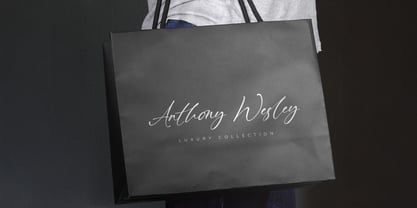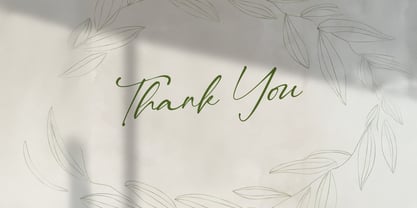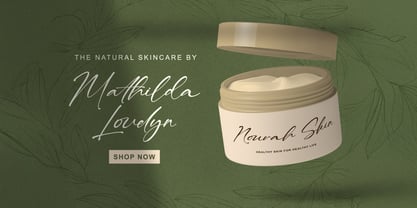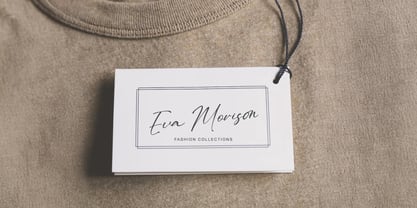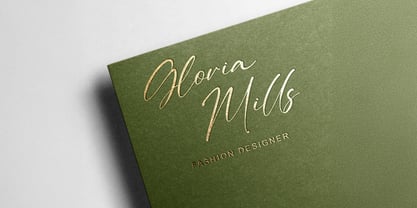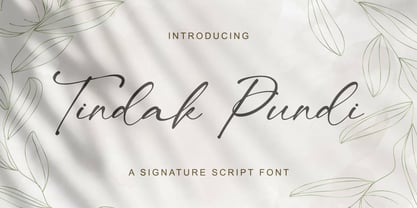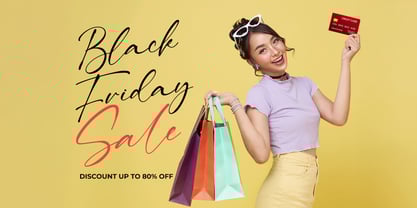
Tindak Pundi
by Stringlabs Creative Studio
The Tindak Pundi Font Family was designed by Virgiawan Listanto and published by Stringlabs Creative Studio. Tindak Pundi contains 1 styles. More about this family
Tindak Pundi is a refined signature script font that blends sophistication with a personal handwritten flair. Designed with smooth curves and elegant letterforms, it captures the essence of a natural signature while remaining stylish and readable.
It’s both charming and professional, perfect for making your branding feel more human and high-end.
Let's add a confident and graceful handwritten touch to your creative projects.
Designers: Virgiawan Listanto
Foundry: Stringlabs Creative Studio